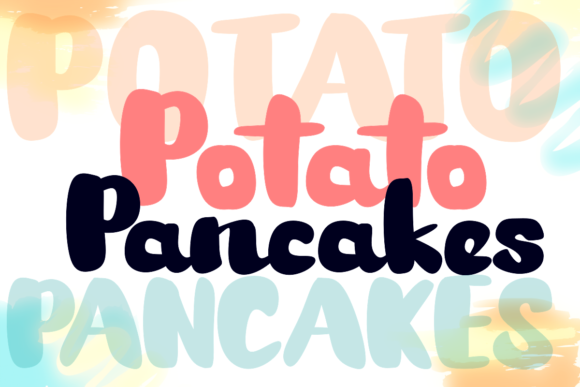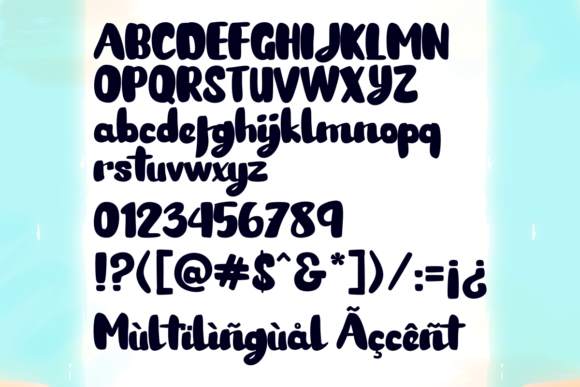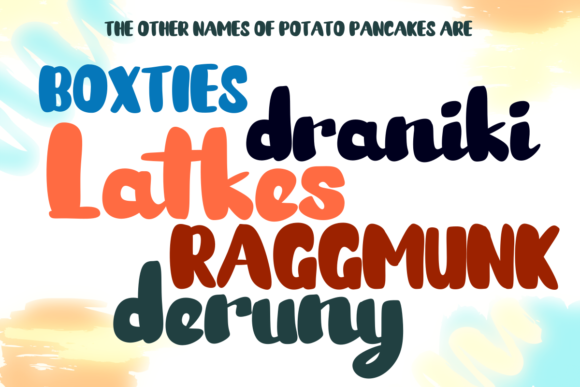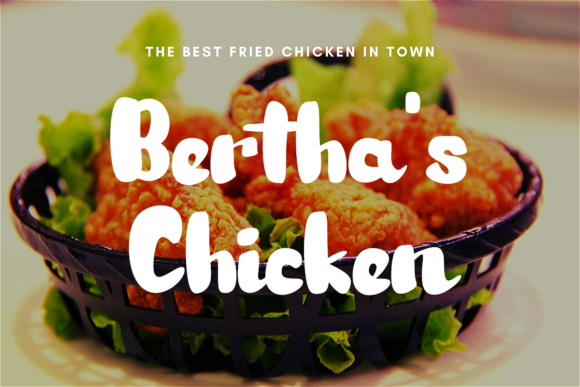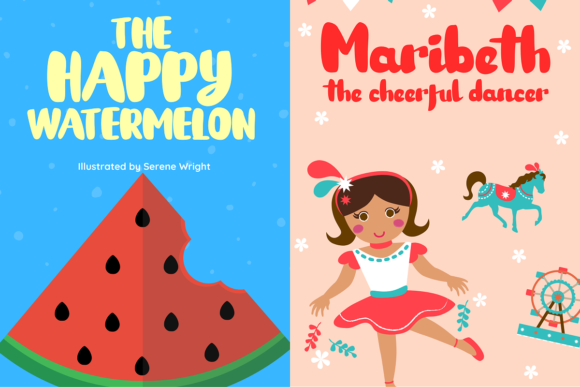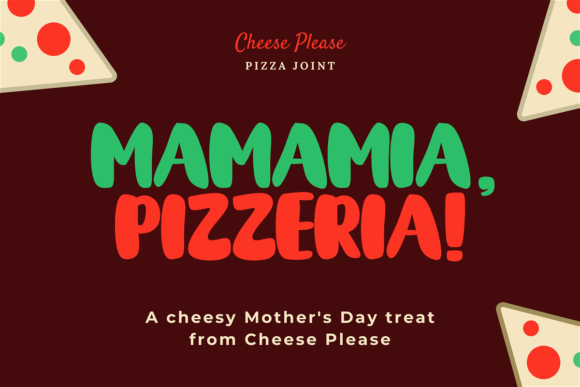
HomePersonal Use FreePotato Pancakes Personal Use Free Potato Pancakes FacebookTwitterPinterestWhatsApp 1 of 7 About Potato Pancakes Font Potato Pancakes is a sweet and chunky lettered display font. Add this font to your creative ideas and notice how it will make them stand out! DOWNLOAD NOW People also explored Animals Font Futturistica Signature Font Halfbritish Font Super Bones Font Swandana Font Stonekids Font Kangaroo Font Onbreghas Font Minimal Sublimation Mug Mockup 155 0 TagsPotato Pancakes Font Previous articleMandarinsNext articleSimple LEAVE A REPLY Cancel reply Comment: Please enter your comment! Name:* Please enter your name here Email:* You have entered an incorrect email address! Please enter your email address here Website: Save my name, email, and website in this browser for the next time I comment. Personal Use Free Sweet Someday Personal Use Free Read more about this font Hello Holiday Personal Use Free Read more about this font Multicolore Personal Use Free Read more about this font Adrenaline Personal Use Free Read more about this font BLOG Transform Your Website: Elevate Your Typography with 7 Best Web Font Generators Are you ready to transform your website's typography from ordinary to extraordinary? Great! Today, we're diving into the world of web font generators, which... Best Fonts for T-Shirt Design – Top 2025 Picks Where to Buy American Fonts Online in 2024 Free vs Paid Fonts: Why Investing in Premium Fonts Is Worth It